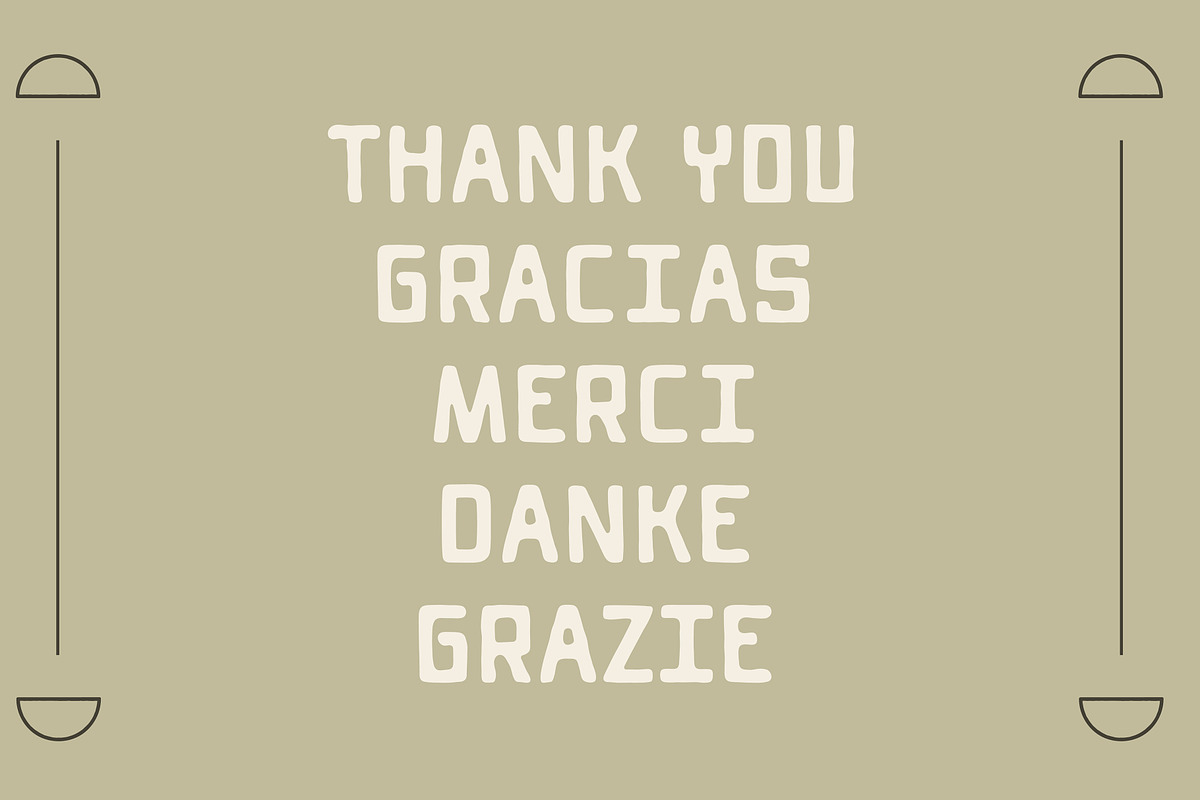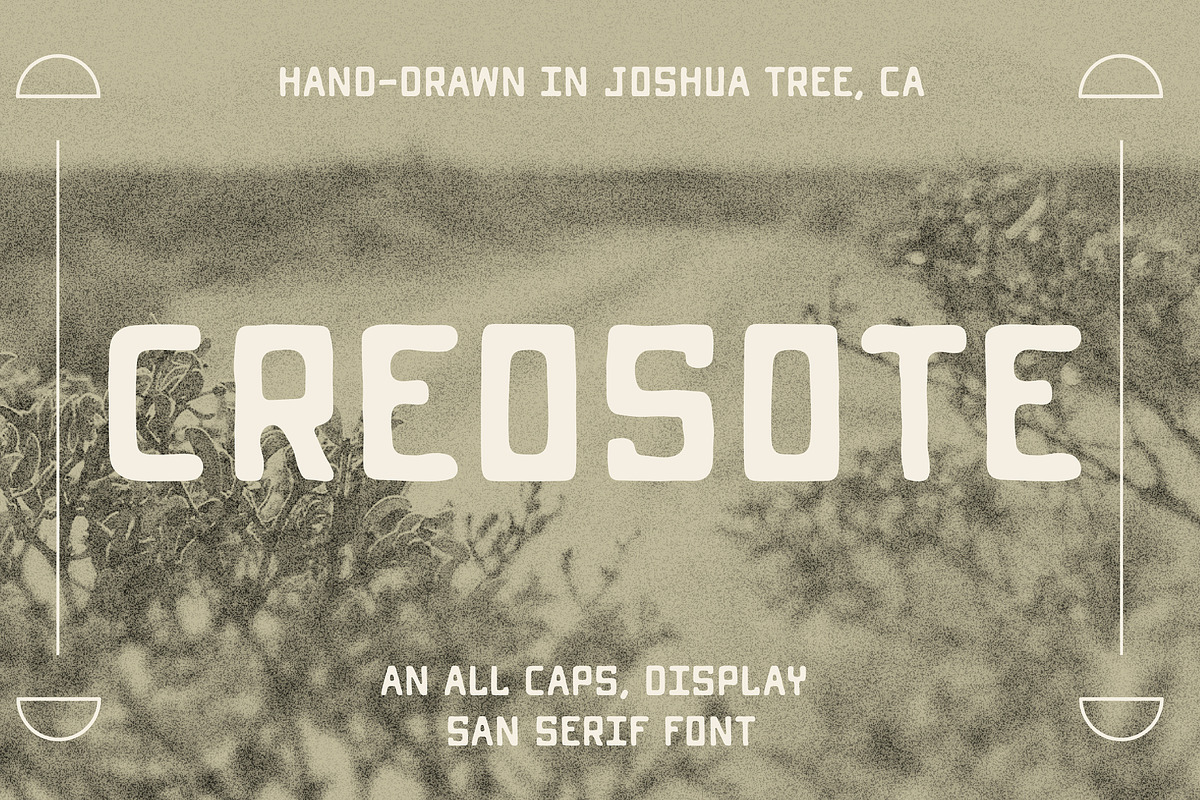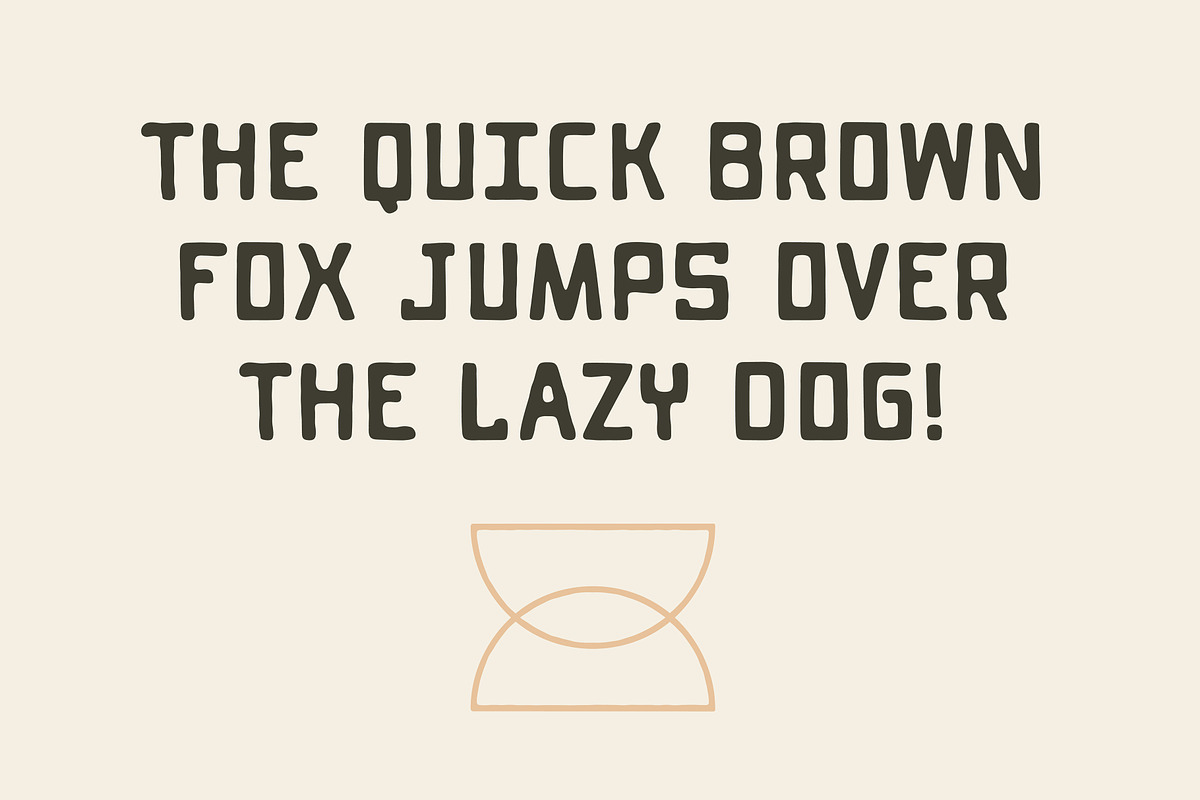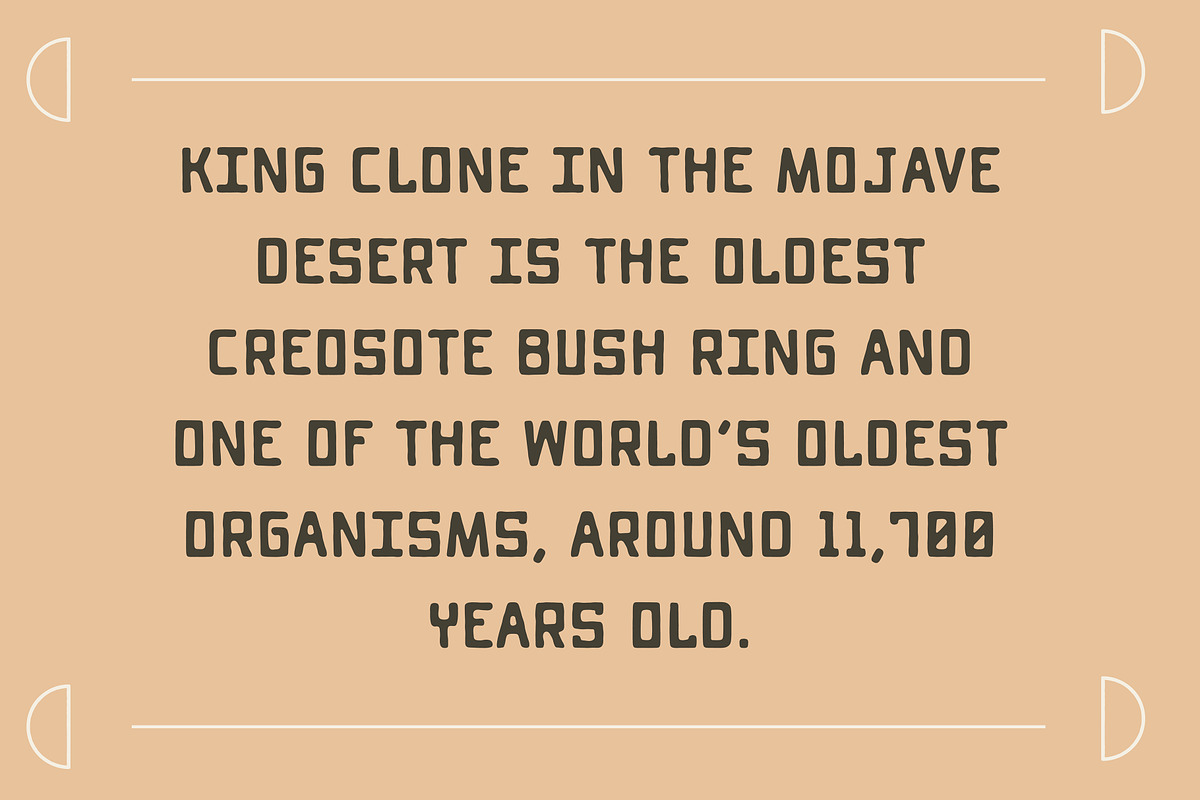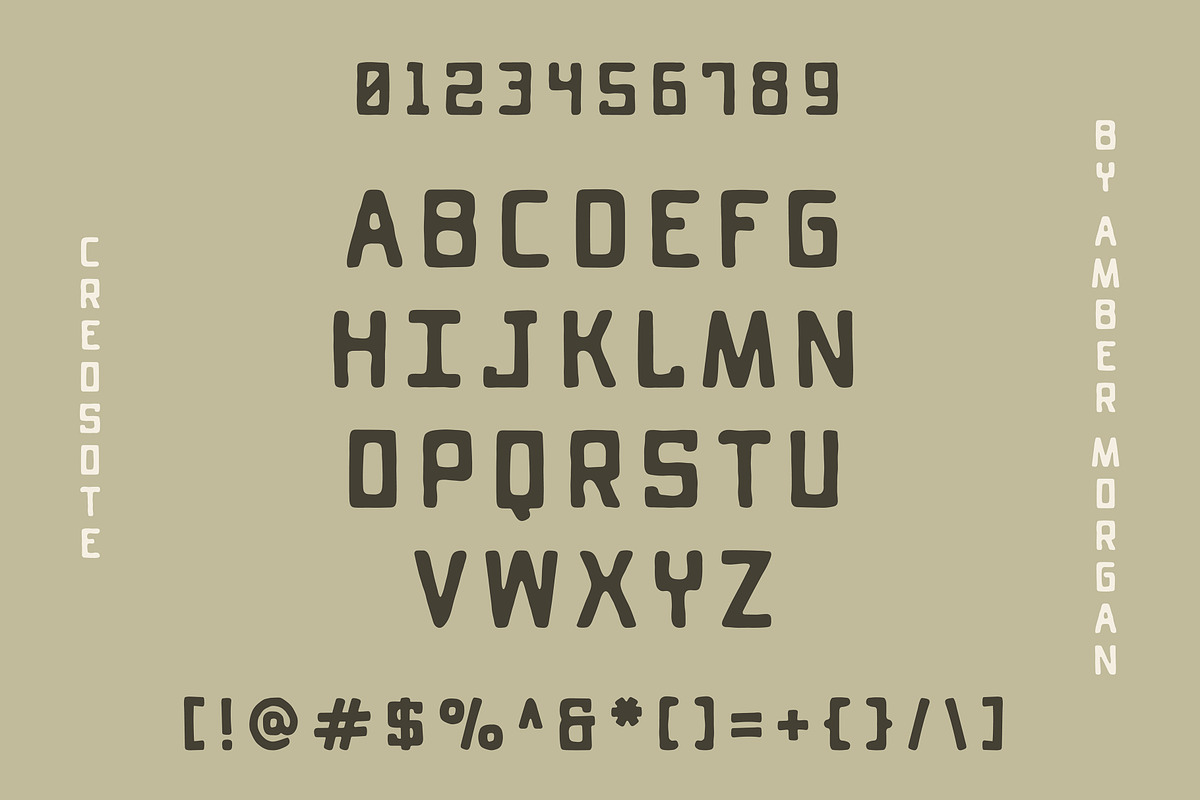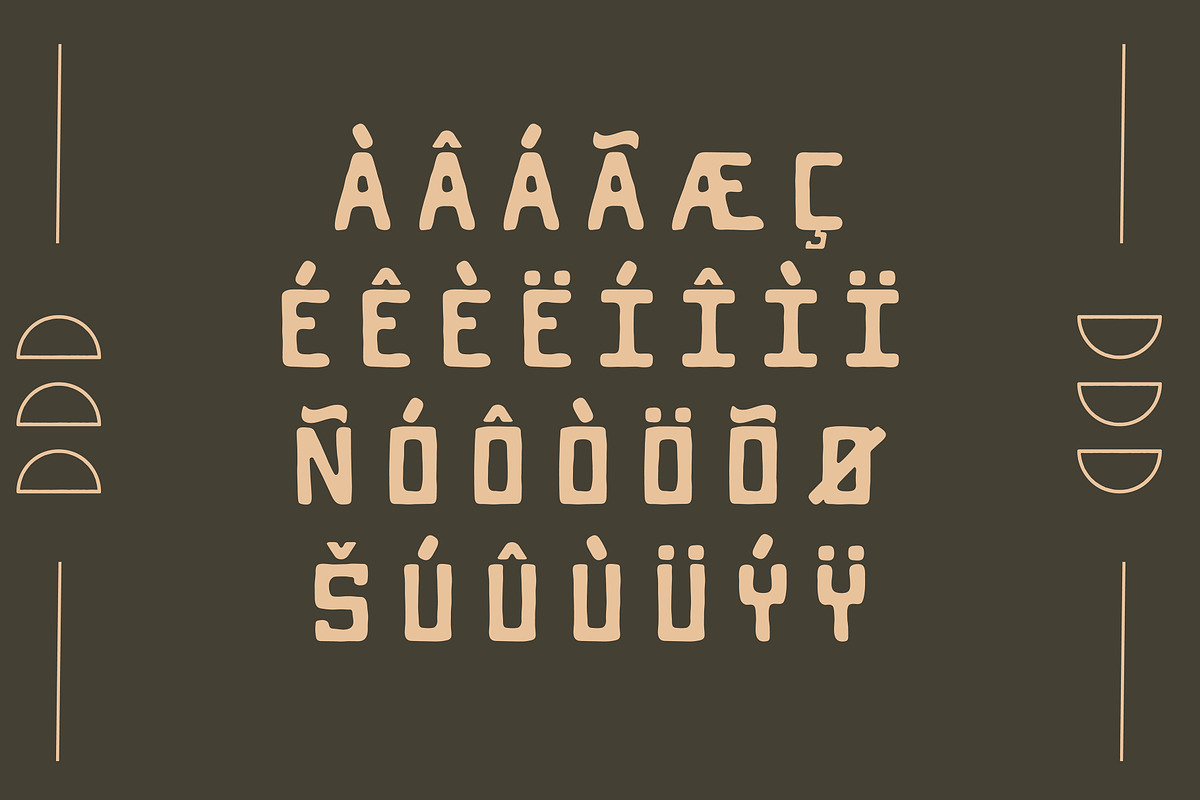
Creosote | Rugged Sans Serif Font
Creosote is a hand-drawn sans serif display font inspired by deserts of the American Southwest.
The tough creosote bush grows throughout the Mojave, Sonoran, and Chihuahuan Deserts, and can symbolize resilience, rejuvenation and creativity. But my favorite thing is the smell of creosote after rain falls in the desert.
This font captures that spirit, blending a playful feel with an earthy, rugged aesthetic. Perfect for projects like outdoor wedding invitations, packaging and apparel design, and more.